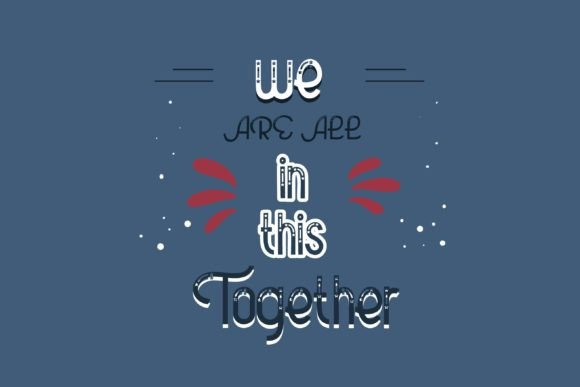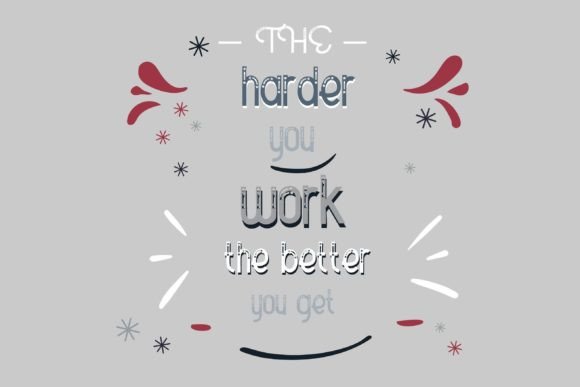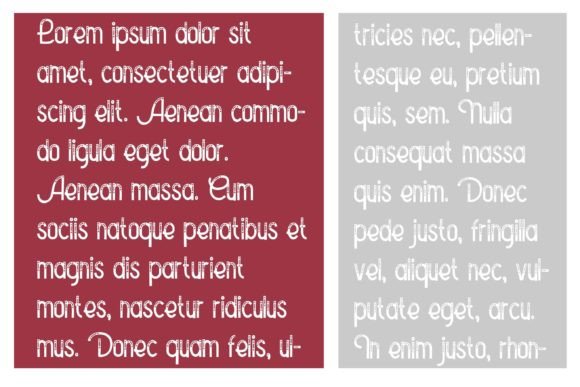
Introduction to National Nouveau Font
Its distinctive design serves as a visual reminder of the ideals and values that the American flag represents, making it an excellent choice for adding a touch of national pride and identity to various design projects.
Its distinctive design serves as a visual reminder of the ideals and values that the American flag represents, making it an excellent choice for adding a touch of national pride and identity to variou
Key Features of National Nouveau Font
Why Choose National Nouveau Font?
National Nouveau Font offers exceptional quality and versatility, making it a valuable addition to your design toolkit. Whether you’re creating for personal projects or commercial use, National Nouveau Font delivers professional results.